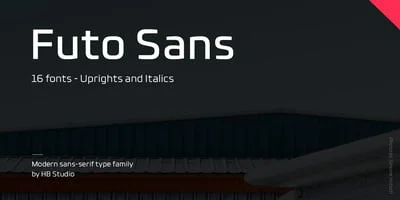
Futo Sans Font
The Futo Sans Font is excellent for contemporary design projects including modern tech branding, user interface design, digital applications, clean corporate websites, minimalist presentations, startup identities, progressive marketing materials, and sleek product packaging. This refined sans-serif typeface brings cutting-edge simplicity and digital-age sophistication to any design project requiring modern, forward-thinking typography.
What makes Futo Sans Font so exciting is its perfect fusion of geometric precision with subtle technological influences that creates an ideal balance between digital functionality and human readability. The letters feature clean, optimized proportions with carefully crafted details that ensure exceptional performance across all digital platforms and screen resolutions. This distinctive modern clarity makes it perfect for brands and projects that want to communicate innovation, efficiency, and contemporary technological excellence.
The Futo Sans Font family typically includes multiple weights from light to bold, complete with matching italic variations and comprehensive character sets. Many versions feature advanced OpenType features, optimized screen rendering, and extensive language support that enhance its functionality for international digital applications and modern interface design.
Whether you're designing for technology companies, digital platforms, or modern service brands, Futo Sans Font offers the perfect solution for projects requiring clean, efficient typography that performs flawlessly in digital environments. This font transforms standard digital content into polished, contemporary designs that immediately communicate technological sophistication, user-focused design, and modern digital excellence to tech-savvy audiences worldwide.